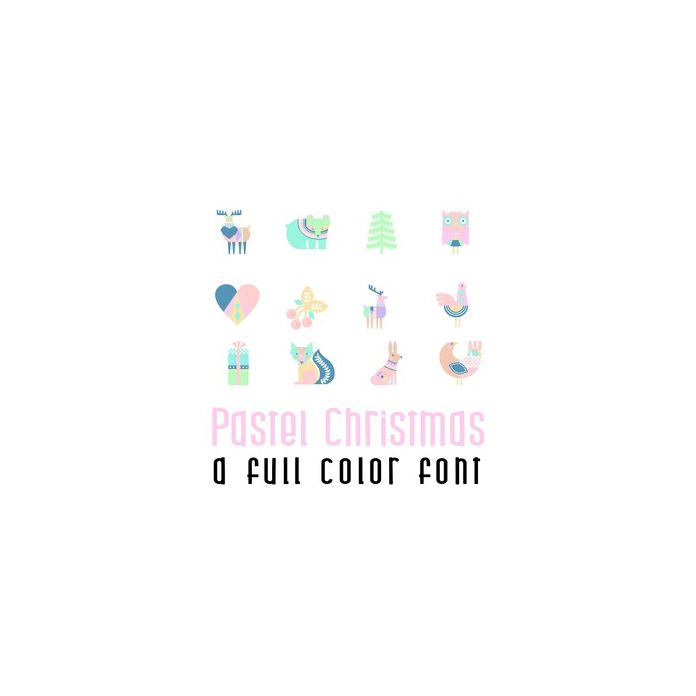
This adorable full-color doodlebat font features 26 contemporary holiday and winter images. Perfect for cards, crafts, gifts, decor, scrapbook pages, planner stickers, and more!